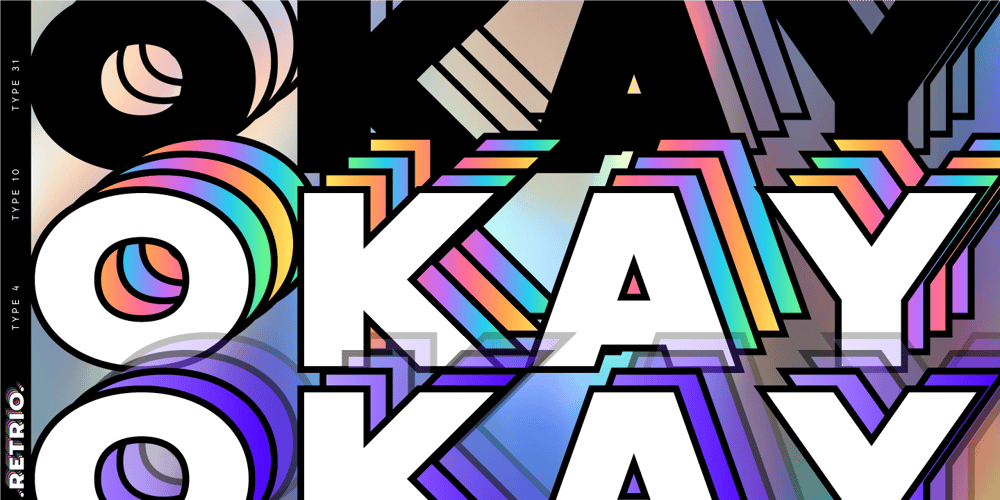
Retrio Font Family was designed by Lauritta Ivanova and published by Luxfont. Retrio contains 42 styles and family package options. Introducing Retrio. Original glyphs with echoed behind. As if the letters were moved, but the kinetic trail remained. Colored, gradient, with transparency or solid – many options in one family for any task and for every taste. The font will emphasize the style of the 20th century in illustration. Discos, electro music, records, nostalgia – these are the associations that this font family evokes, which is very important in design. At the same time, the Retrio font is not outdated, it was created taking into account modern trends in retro themes. A unique family in which there are both color and classic monochrome versions. Great versatility in use is provided by the many fonts in the set. Great for ad designs, posters, headlines and covers.Check the quality before purchasing and try the FREE DEMO version of the font to make sure your software supports color fonts. P.s. Have suggestions for color combinations? Write me an email with the subject “Retrio Color” on: ld.luxfont@gmail.com Features: – Free Demo font to check it works.- Uppercase and lowercase the same size.- With transparency and without.- Mega high-quality gradients in letters.- Kerning. IMPORTANT: – Multicolor version of this font will show up only in apps that are compatible with color fonts, like Adobe Photoshop CC 2017.0.1 and above, Illustrator CC 2018. Learn more about color fonts & their support in third-party apps on www.colorfonts.wtf-Don’t worry about what you can’t see the preview of the font in the tab “Individual Styles” – all fonts are working and have passed technical inspection, but not displayed, they just because the website MyFonts is not yet able to show a preview of colored fonts. Then if you have software with support colored fonts – you can be sure that after installing fonts into the system you will be able to use them like every other classic font. Question/answer: How to install a font? The procedure for installing the font in the system has not changed. Install the font as you would install the classic fonts.How can I change the font color to my color? · Adobe Illustrator:Convert text to outline and easily change color to your taste as if you were repainting a simple vector shape. · Adobe Photoshop: You can easily repaint text layer with Layer effects and color overlay. ld.luxfont@gmail.com